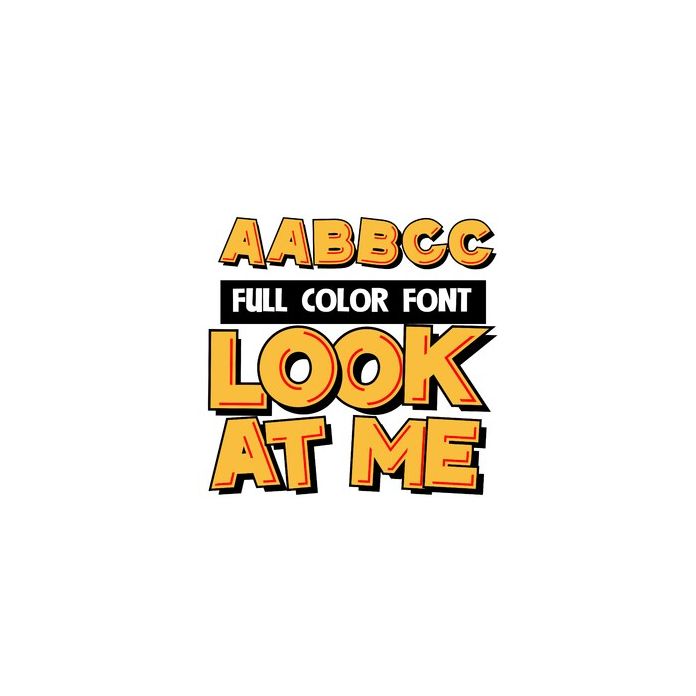
This full-color font features big blocky, sans serif lettering with red highlights and a heavy black shadow. This font works best for titles, displays, posters and more. Please note color fonts will show as black in non compatible programs. This font type is compatible with Silhouette Studio